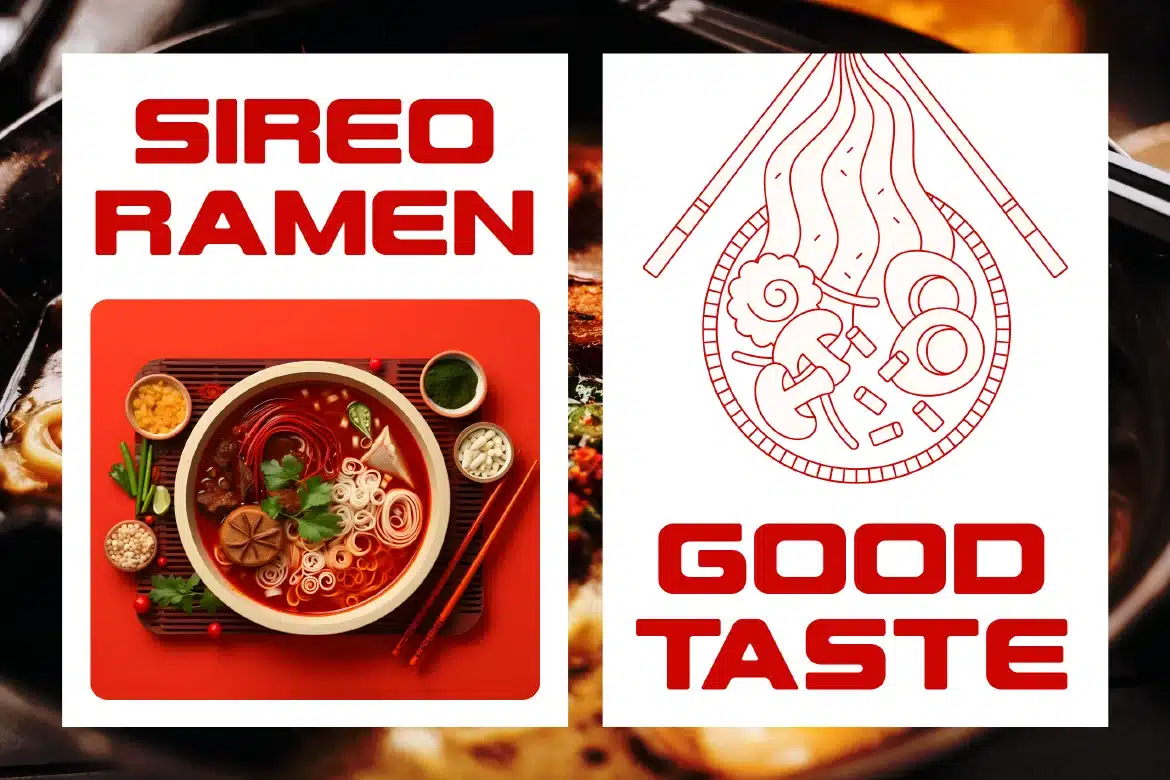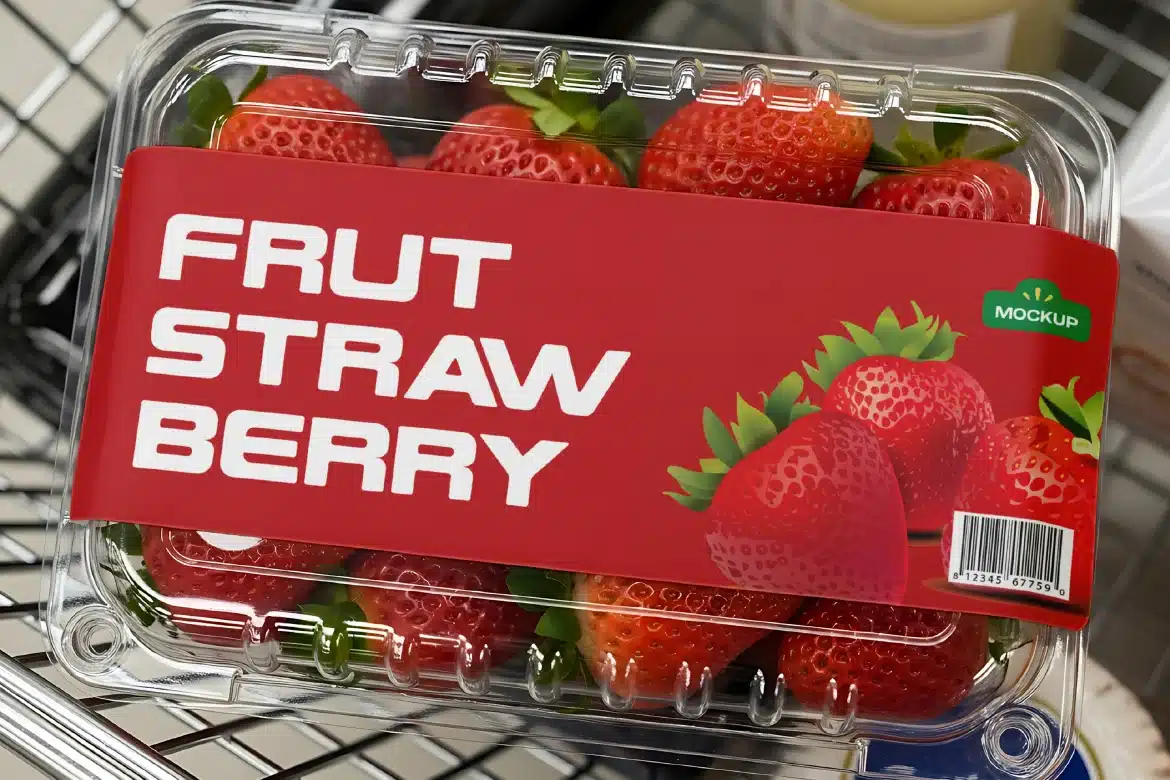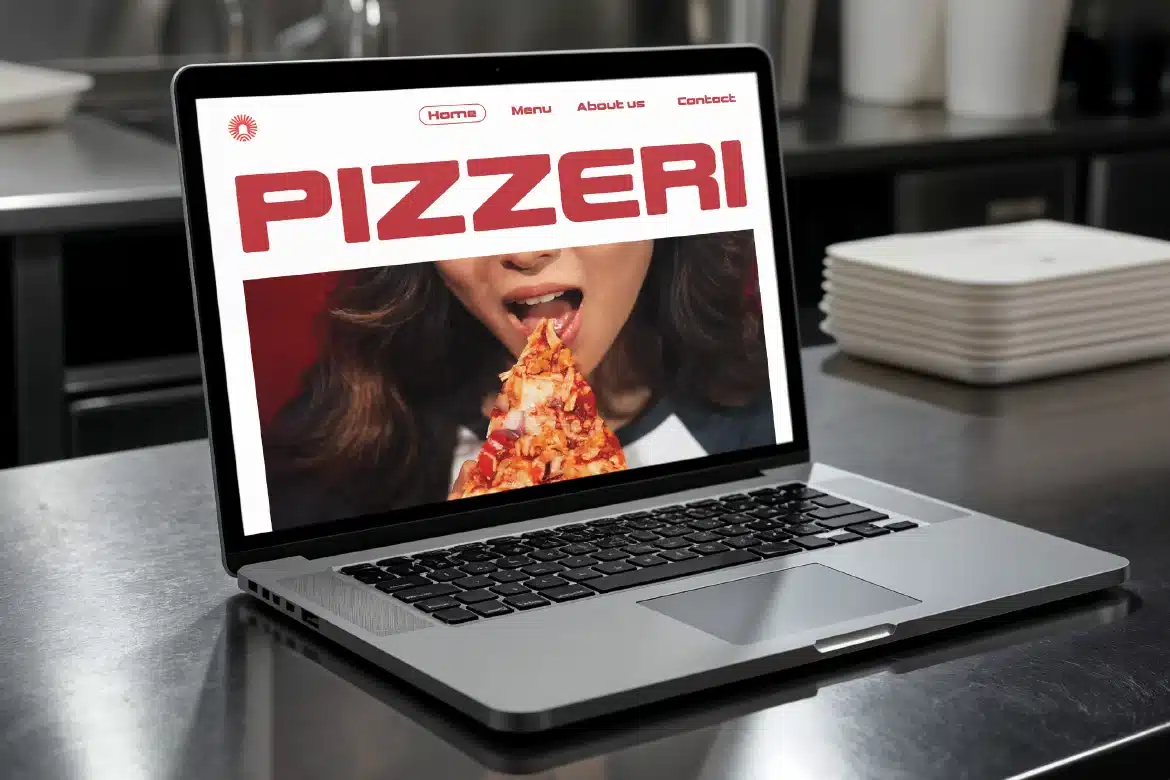
Grox is a modern rounded sans-serif font designed to bring a minimalist, clean, and approachable feel to your designs. With its bold curves, soft edges, and well-balanced letterforms, Grox creates a friendly and contemporary visual style that feels both professional and inviting. Built with versatility in mind, Grox combines clarity with personality. Its rounded structure enhances readability while adding a subtle softness, making it perfect for designs that aim to feel modern yet approachable. The font adapts effortlessly across various applications, from bold headlines to clean body text.
Who Should Use Grox?
Grox is ideal for designers, brands, and creatives looking for a clean and friendly rounded sans serif font. Itβs especially suited for projects that require a modern, approachable, and versatile typographic style.
Brand identity and logo design
UI/UX and website design
Packaging and product branding
Social media content
Editorial and layout design
Marketing and advertising materials
Clean and modern typography projects